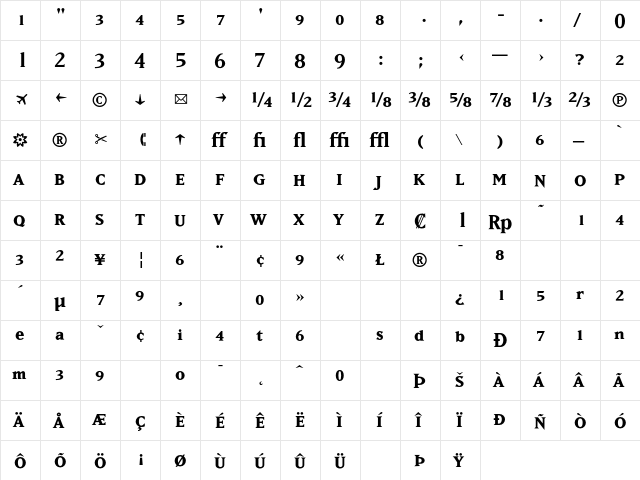
MatrixFractions Bold
Design Context for MatrixFractions Typeface
MatrixFractions is a composed and adaptable typeface that performs quietly and consistently across a wide range of design contexts. Its bold stroke weight gives it real presence on the page.